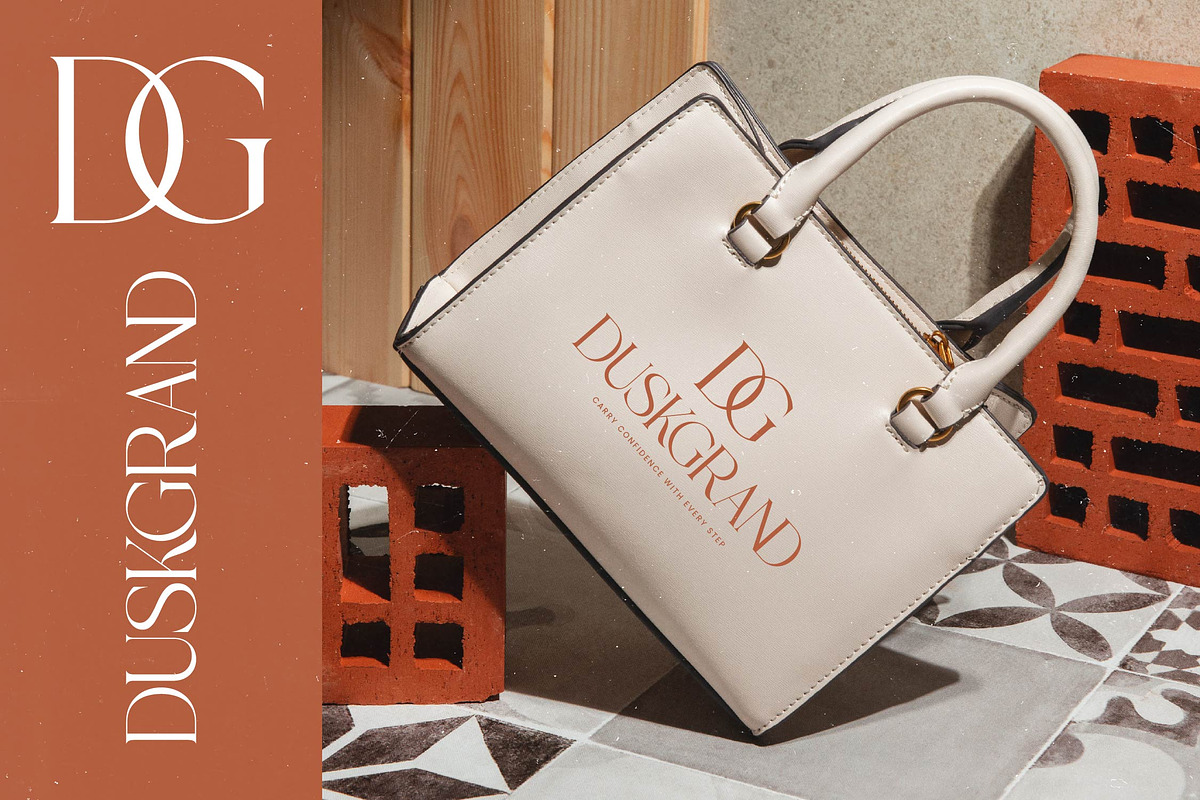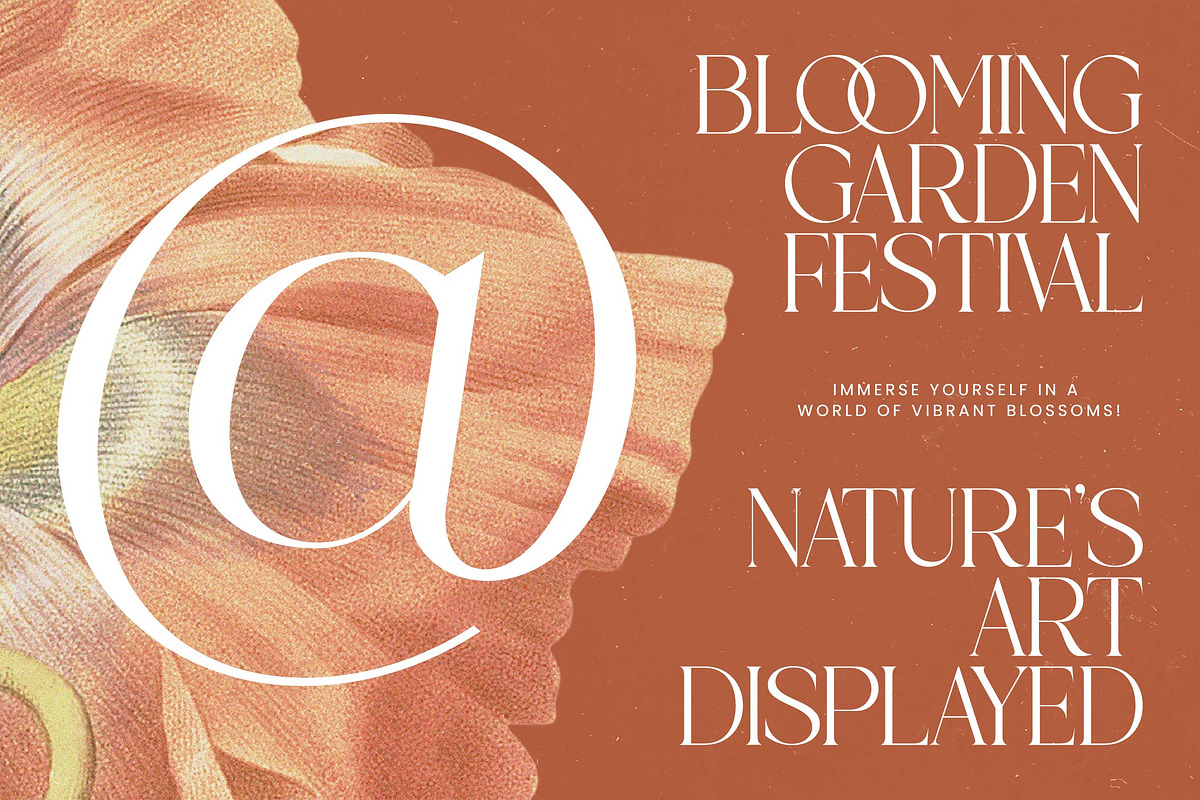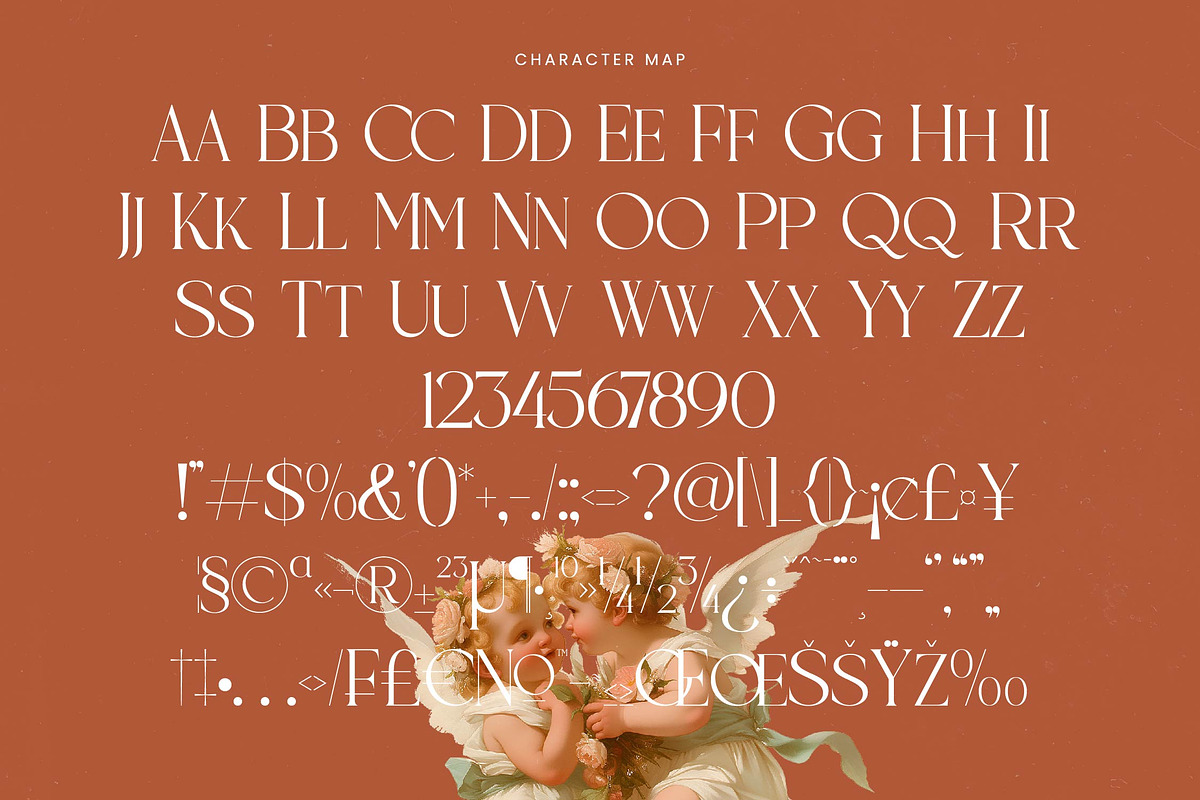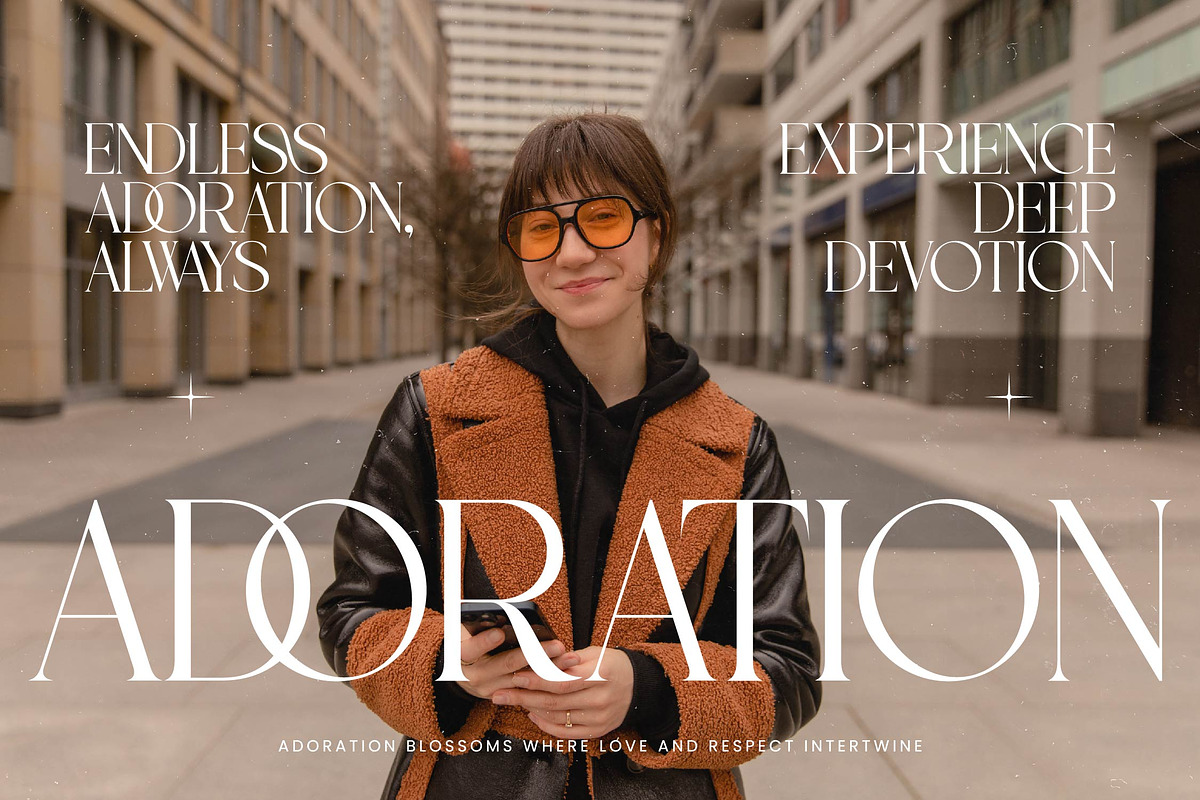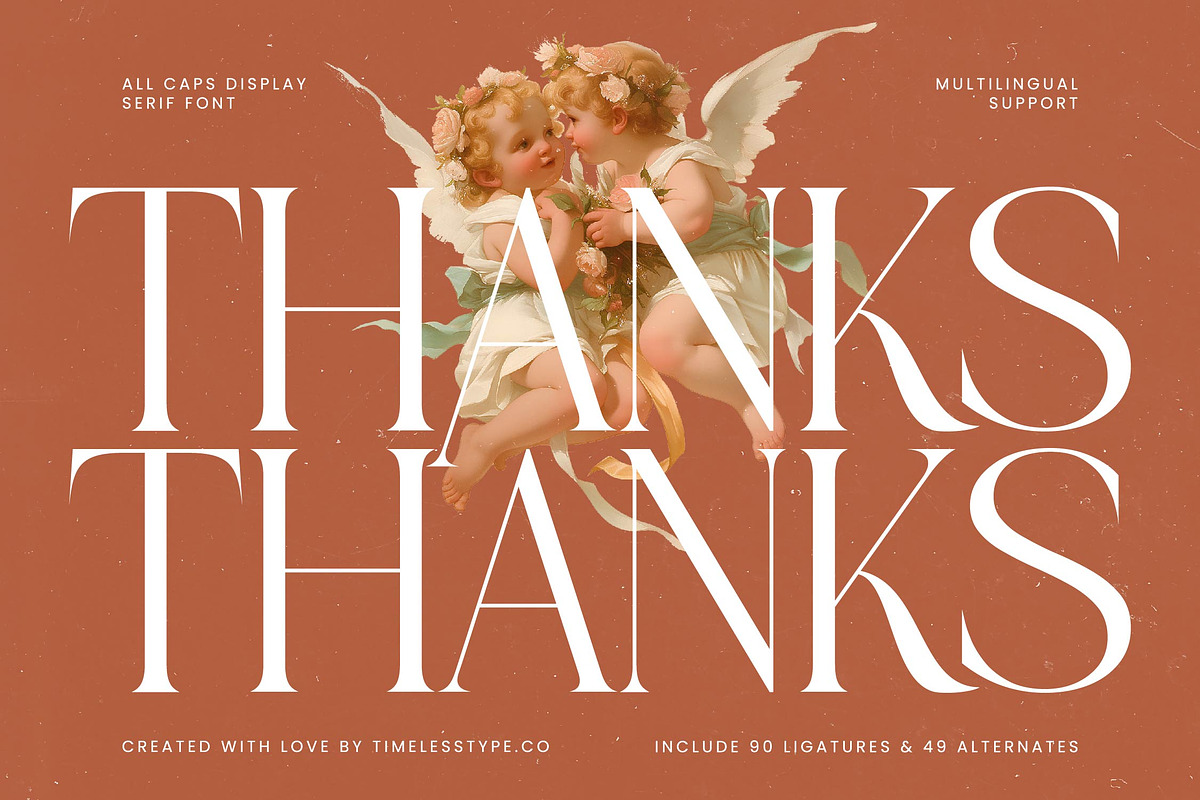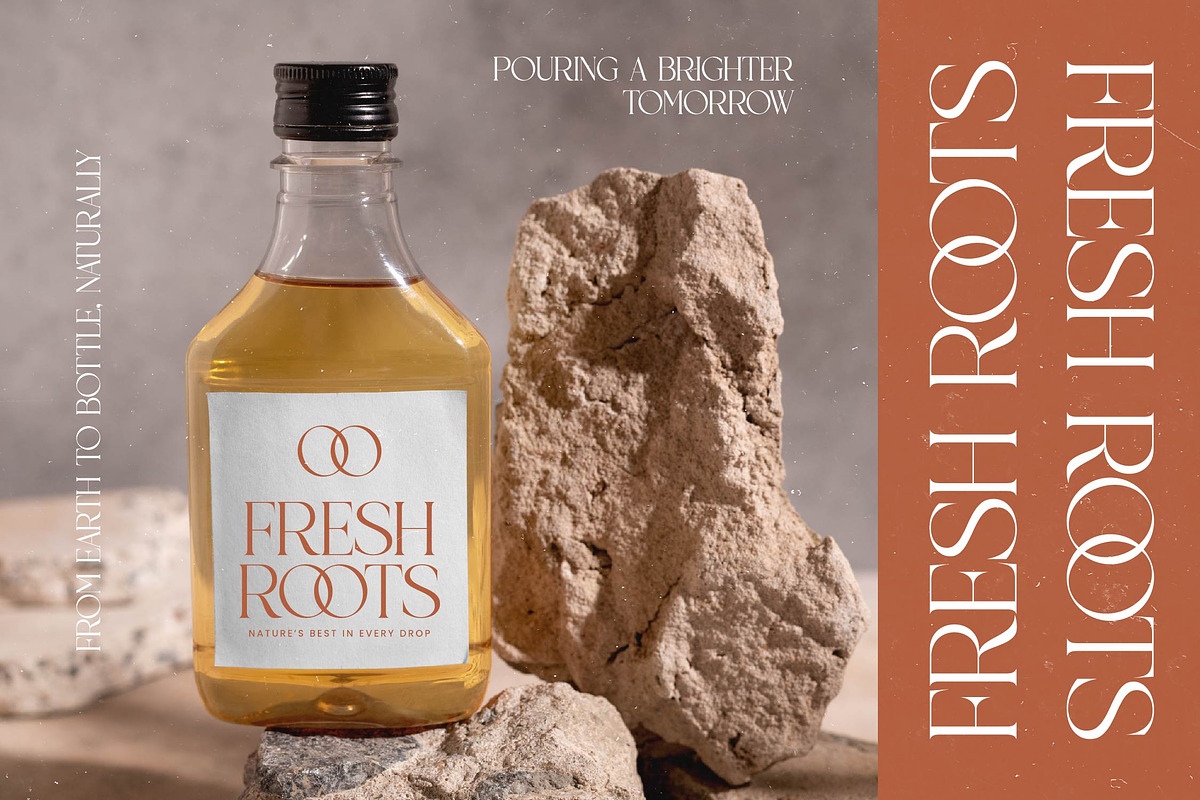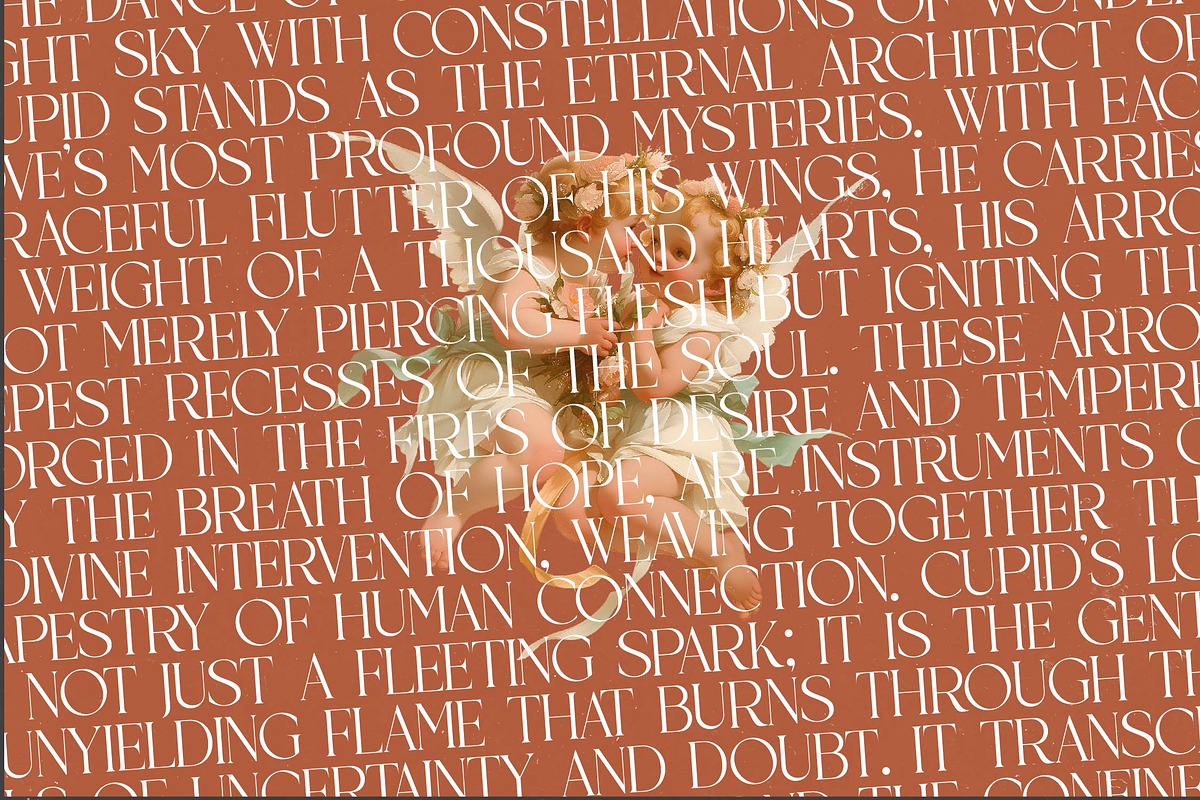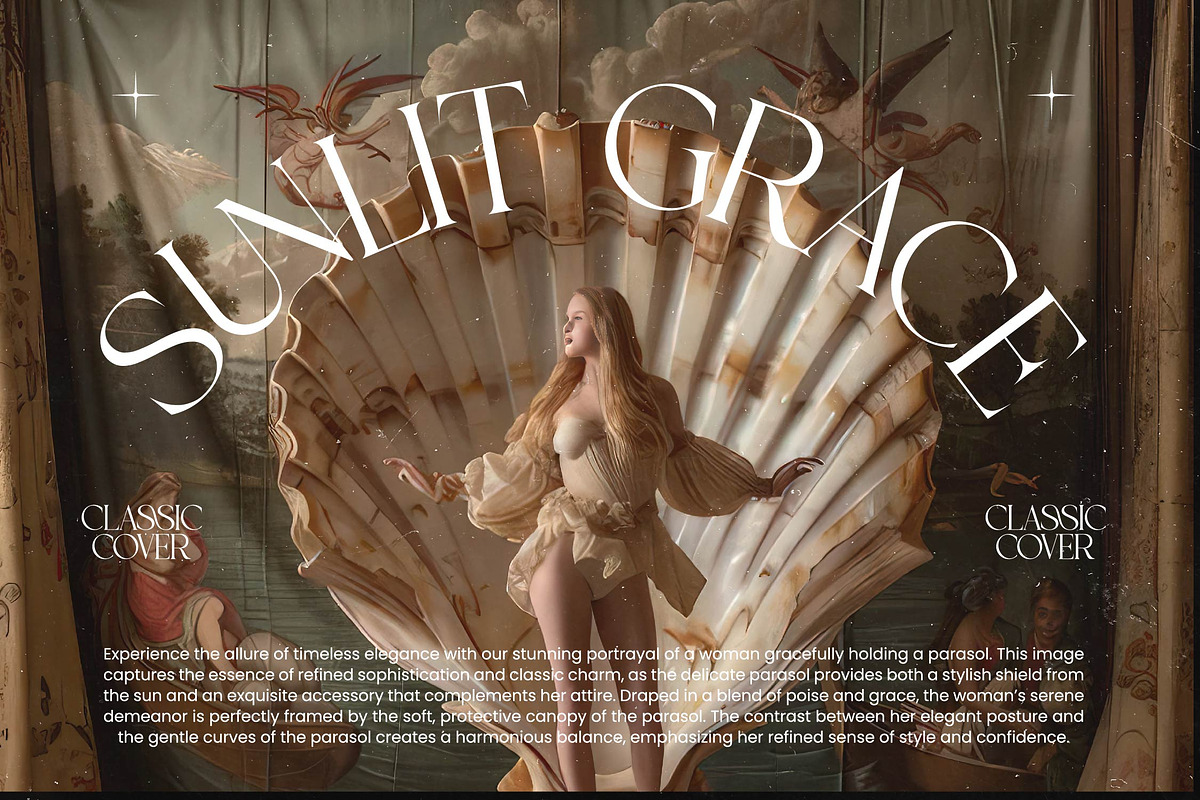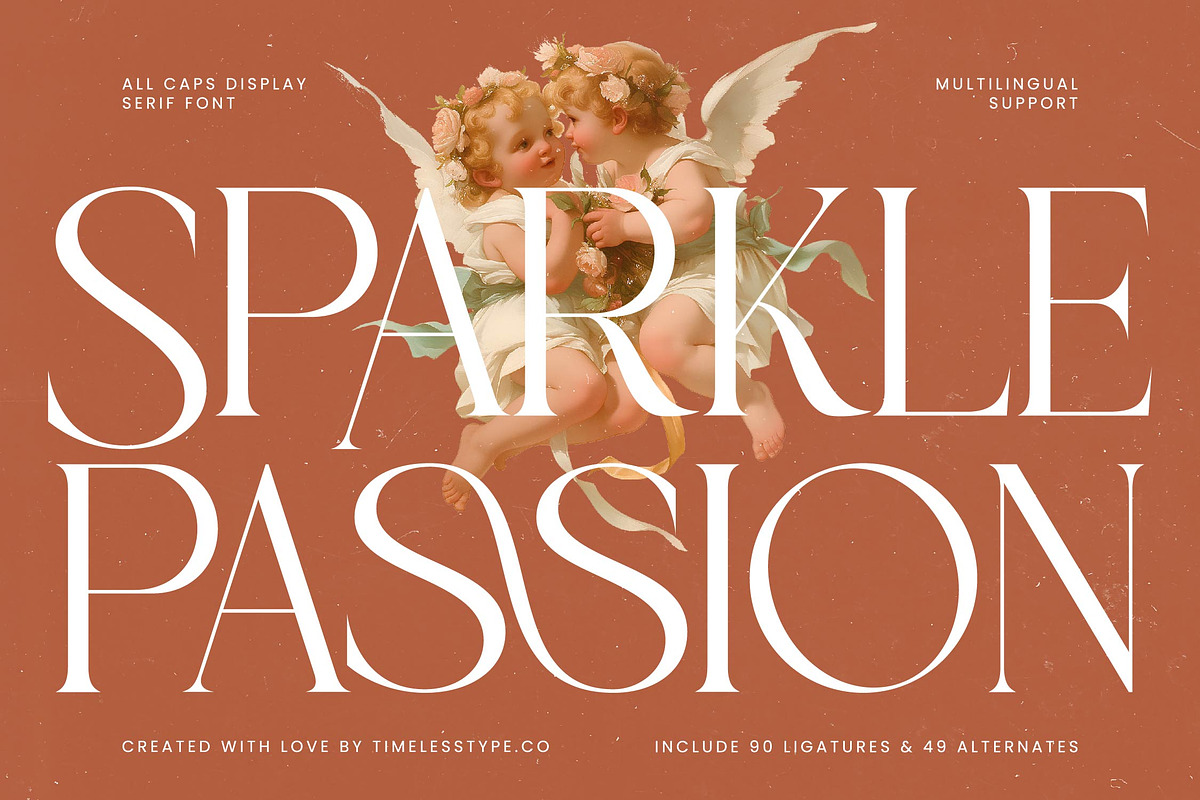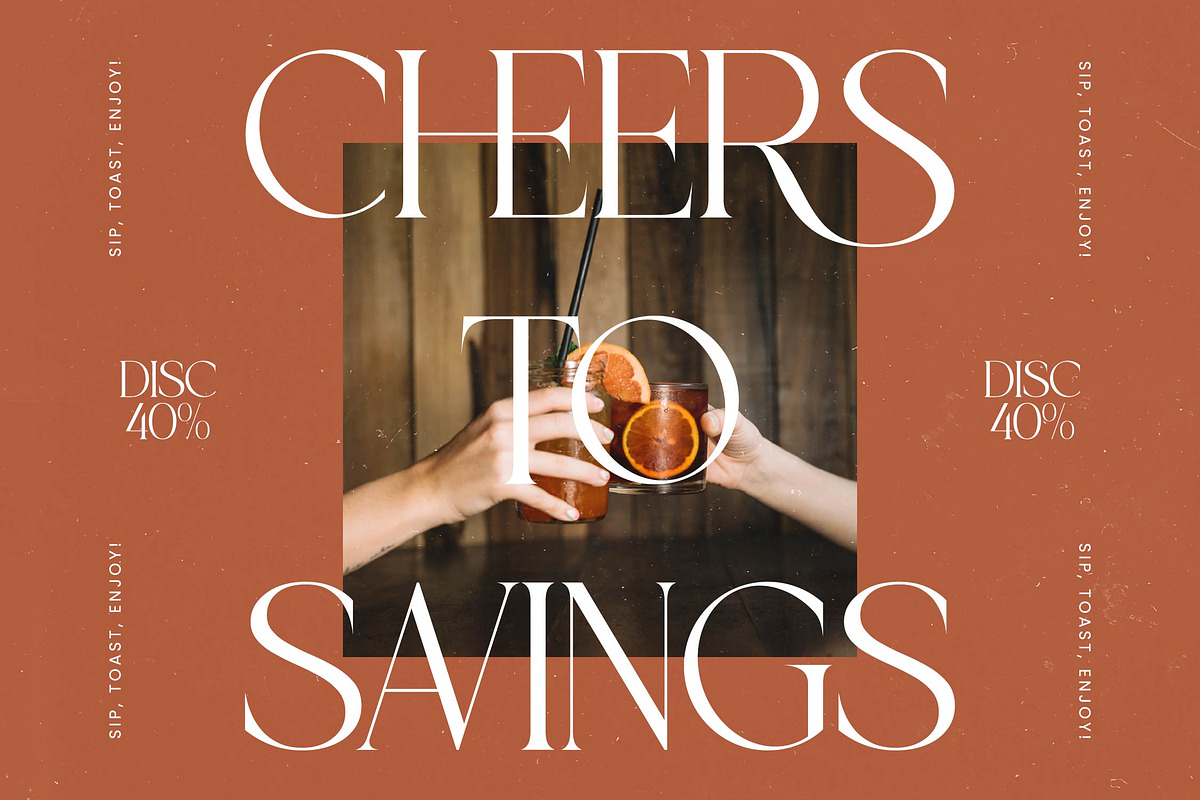
Sparkle Passion All Caps Display
Sparkle Passion - All Caps Display Serif Font , from Timelesstype.Co , Suitable for any projects such as: logos, branding projects, homeware designs, product packaging, mugs, quotes, posters, shopping bags, t-shirts, book covers, name card, invitation cards, greeting cards, label, photography, watermark, special events, and all your other luxury and beautiful projects that need a Luxury Serif taste.
- Ligature 90 Alternate 49